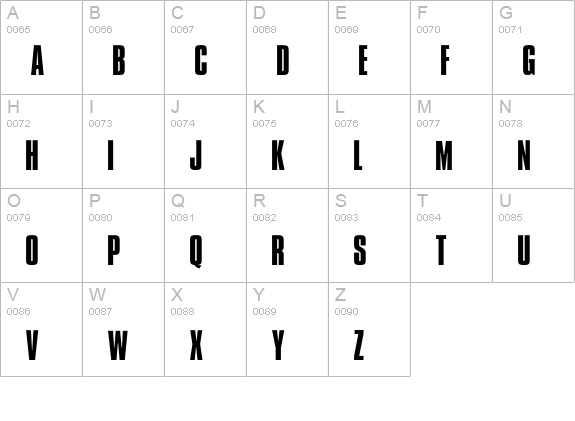
CompactaICG Font Details
CompactaICG is a sleek and modern font that exudes elegance and sophistication. Its clean lines and compact design make it perfect for a wide range of design projects, from branding to advertising to web design. This versatile font is ideal for creating eye-catching headlines, signage, and promotional materials. The best part? CompactaICG is available for free download at FontsMarket.com. This means you can easily access this premium font without breaking the bank. Whether you're a designer looking to add a touch of class to your projects or a business owner in need of a professional font for your marketing materials, CompactaICG has got you covered. Don't miss out on this fantastic opportunity to enhance your designs with the timeless beauty of CompactaICG. Download it for free today and see the difference it can make in your next project!